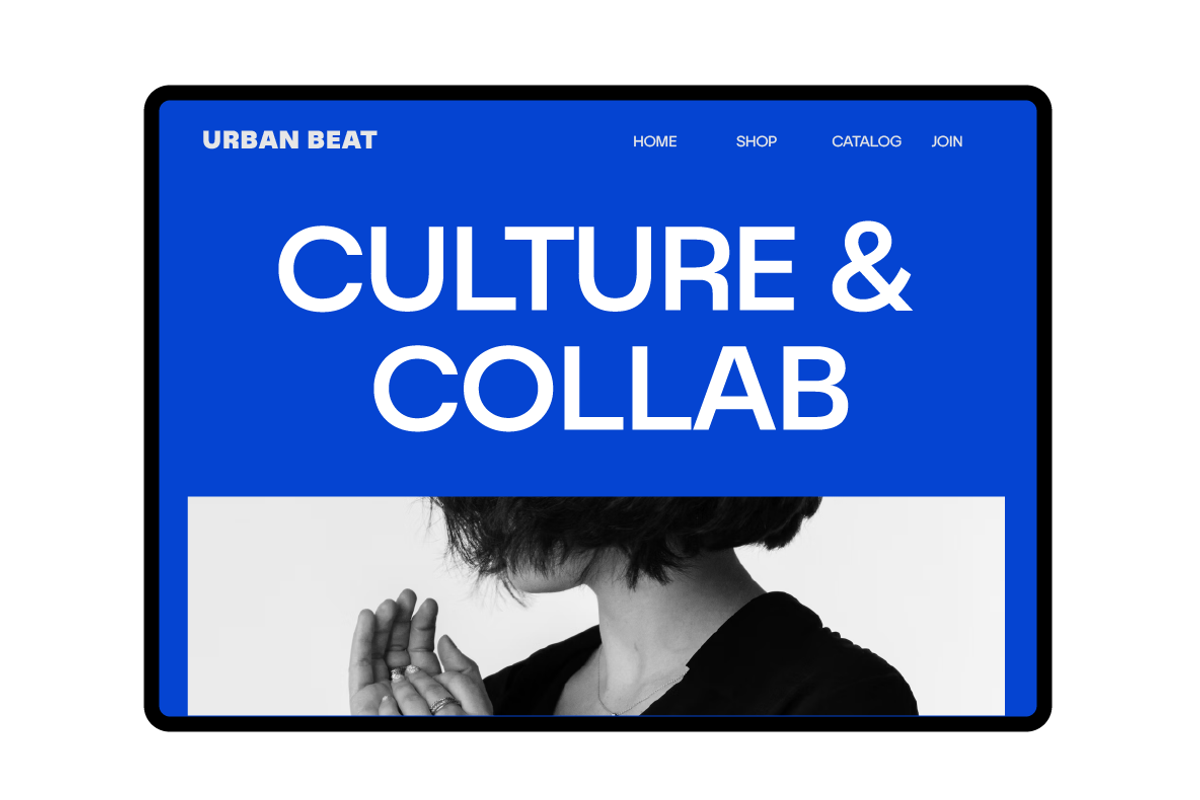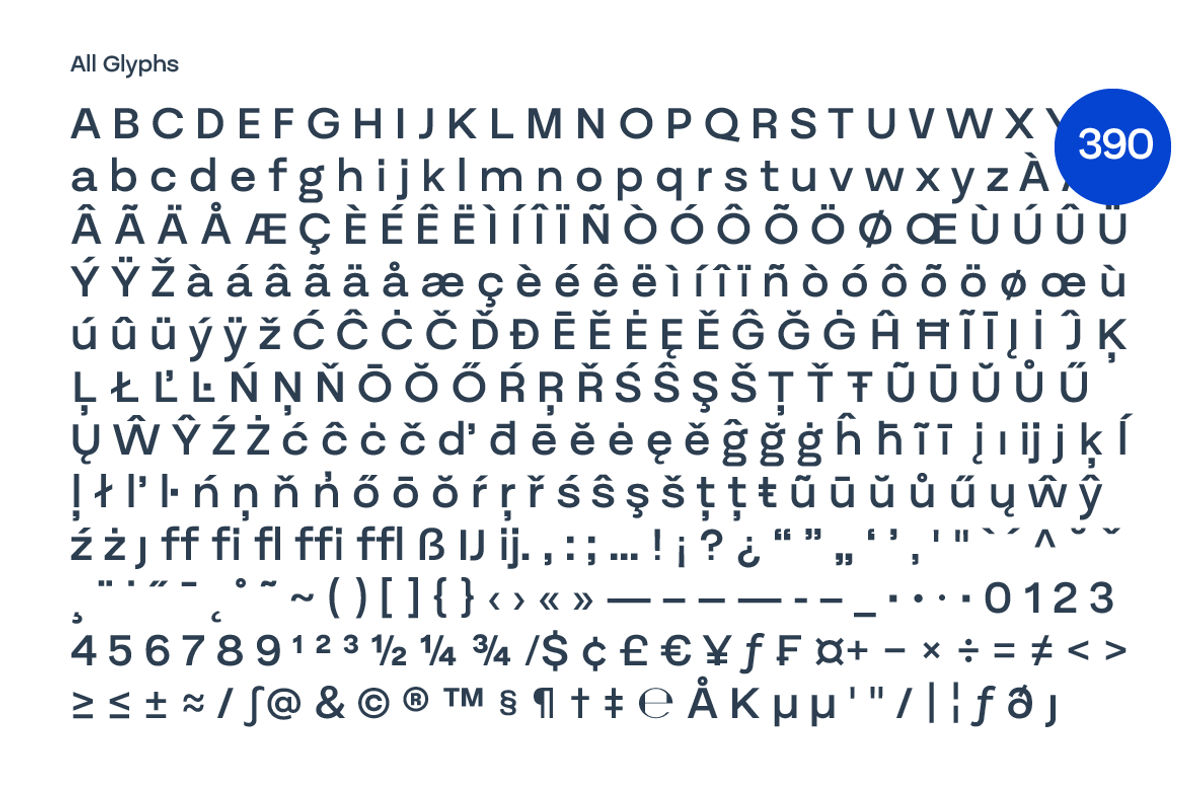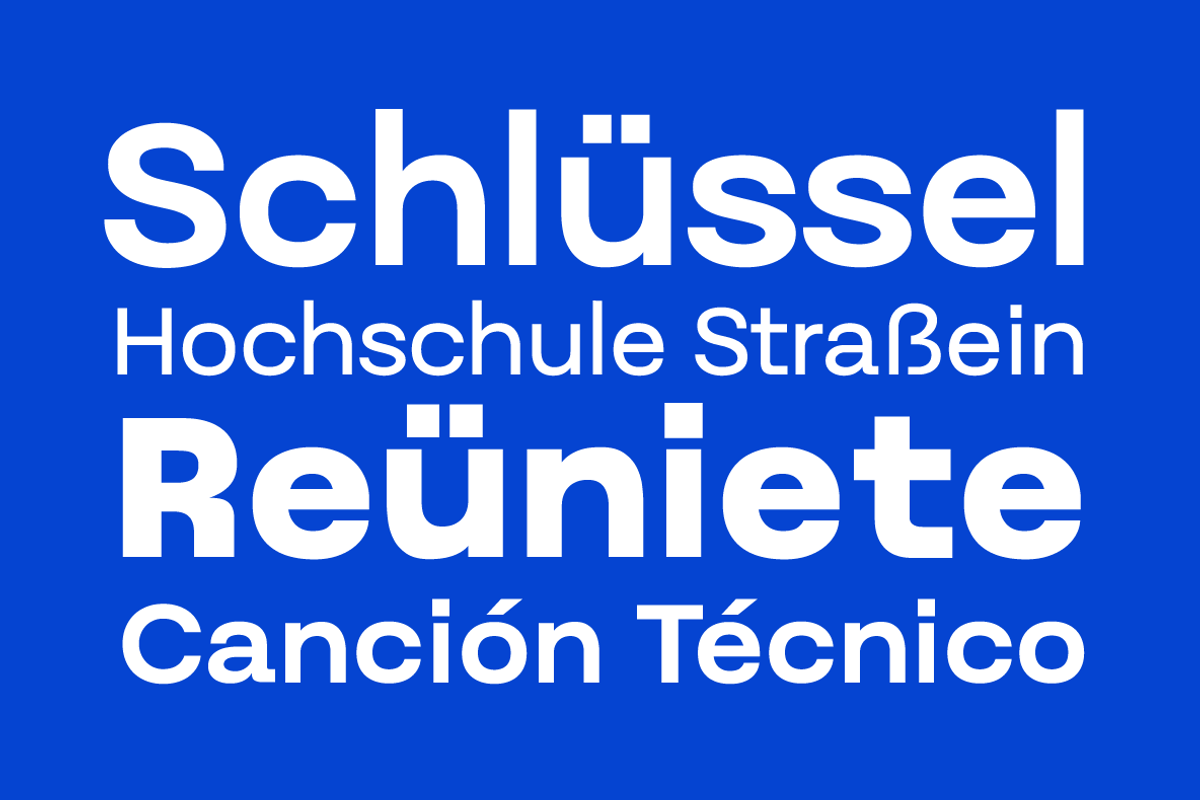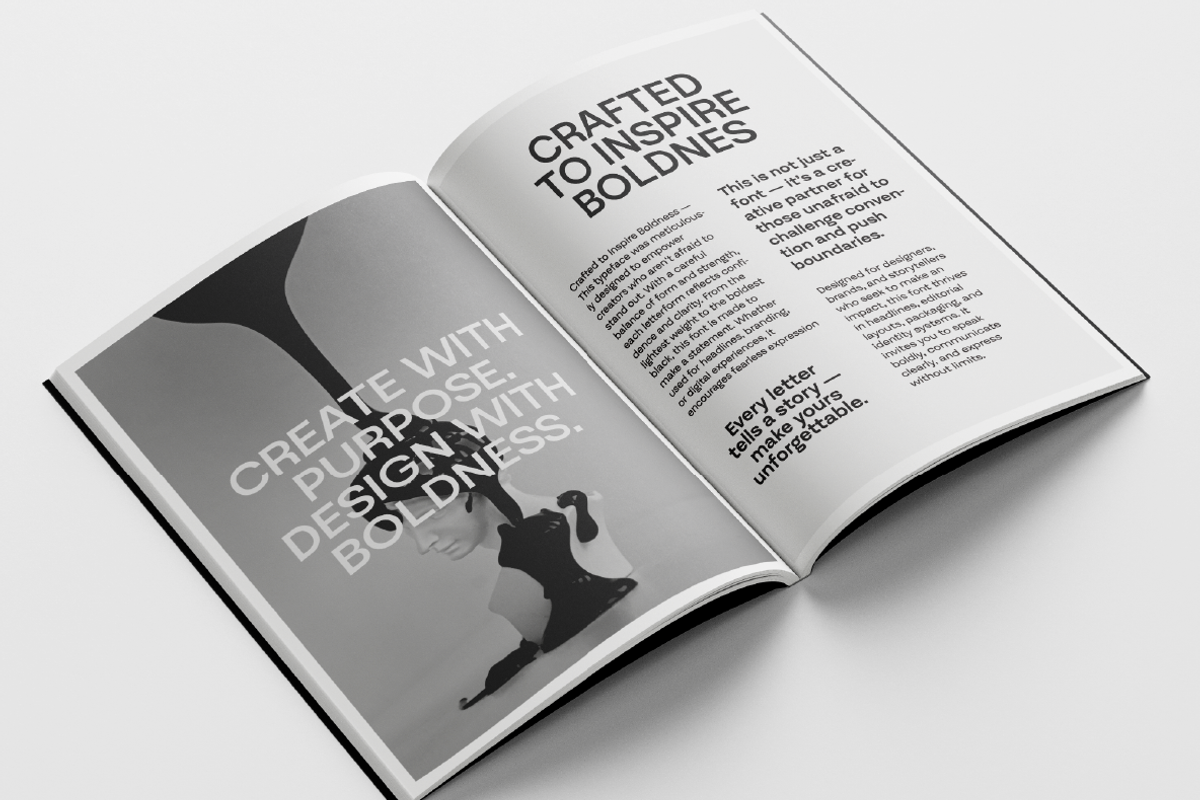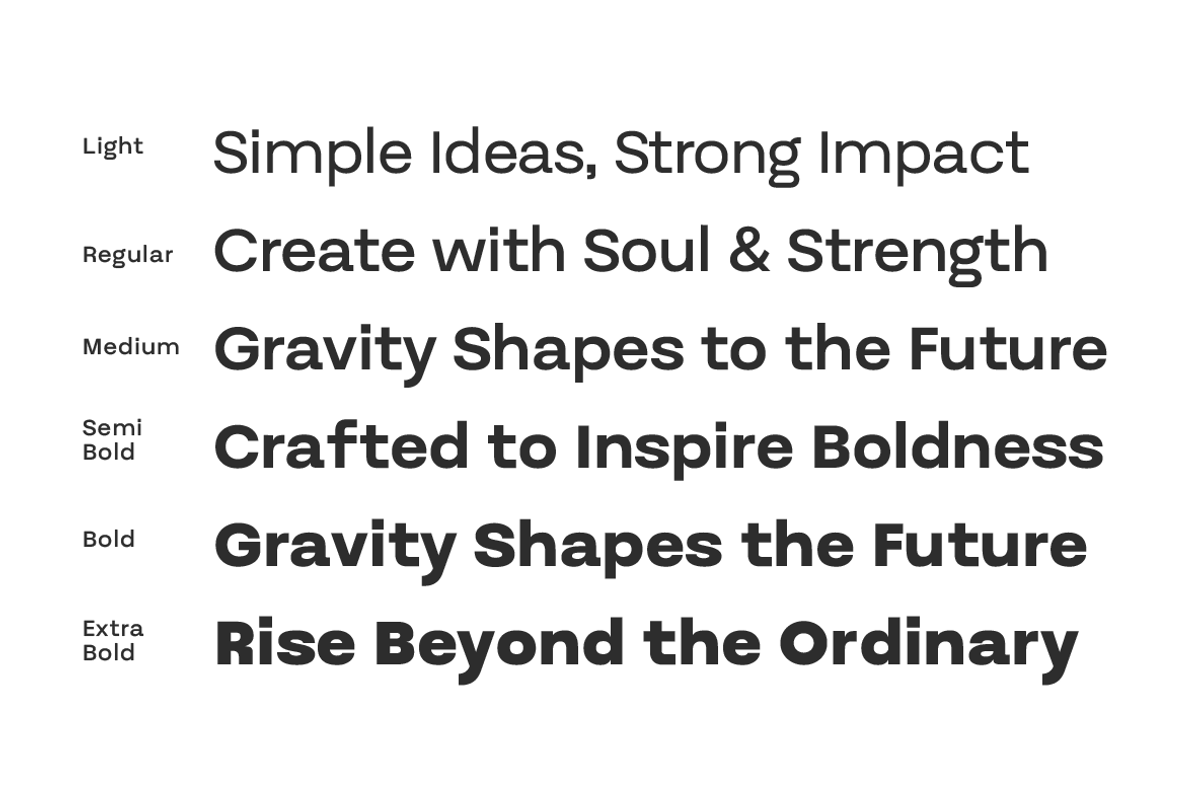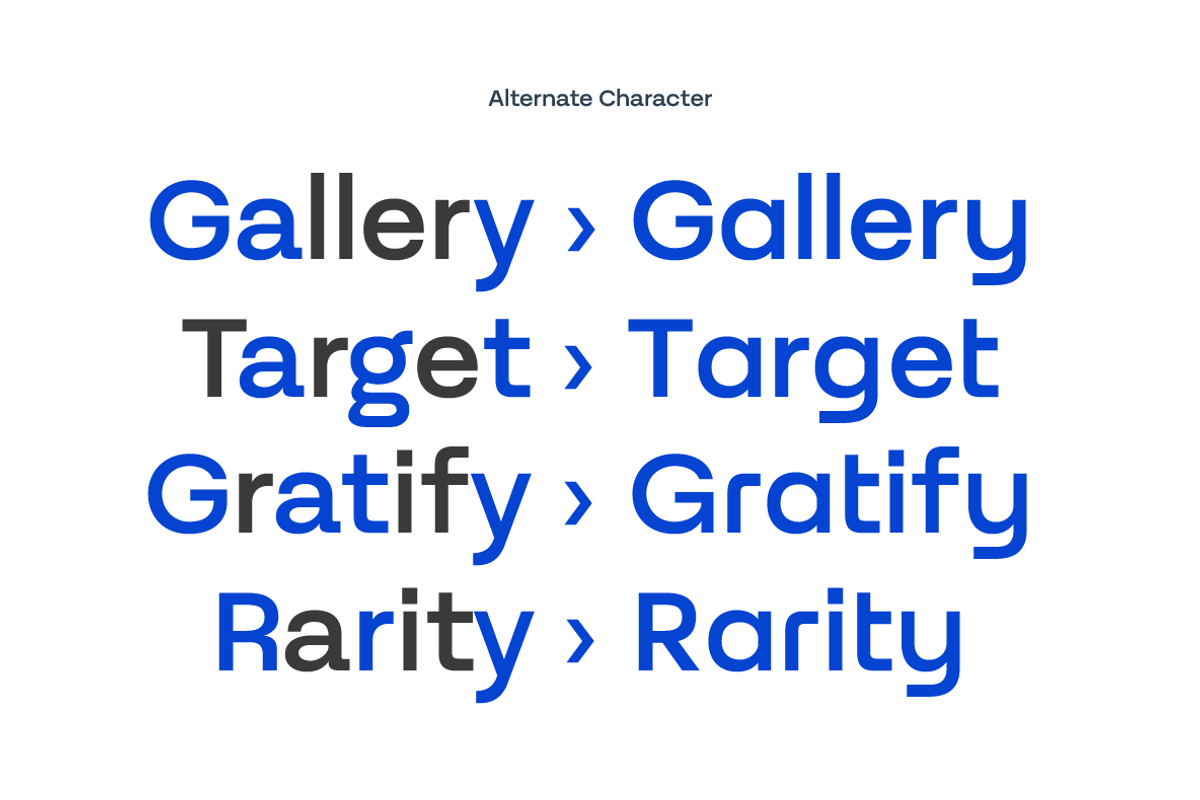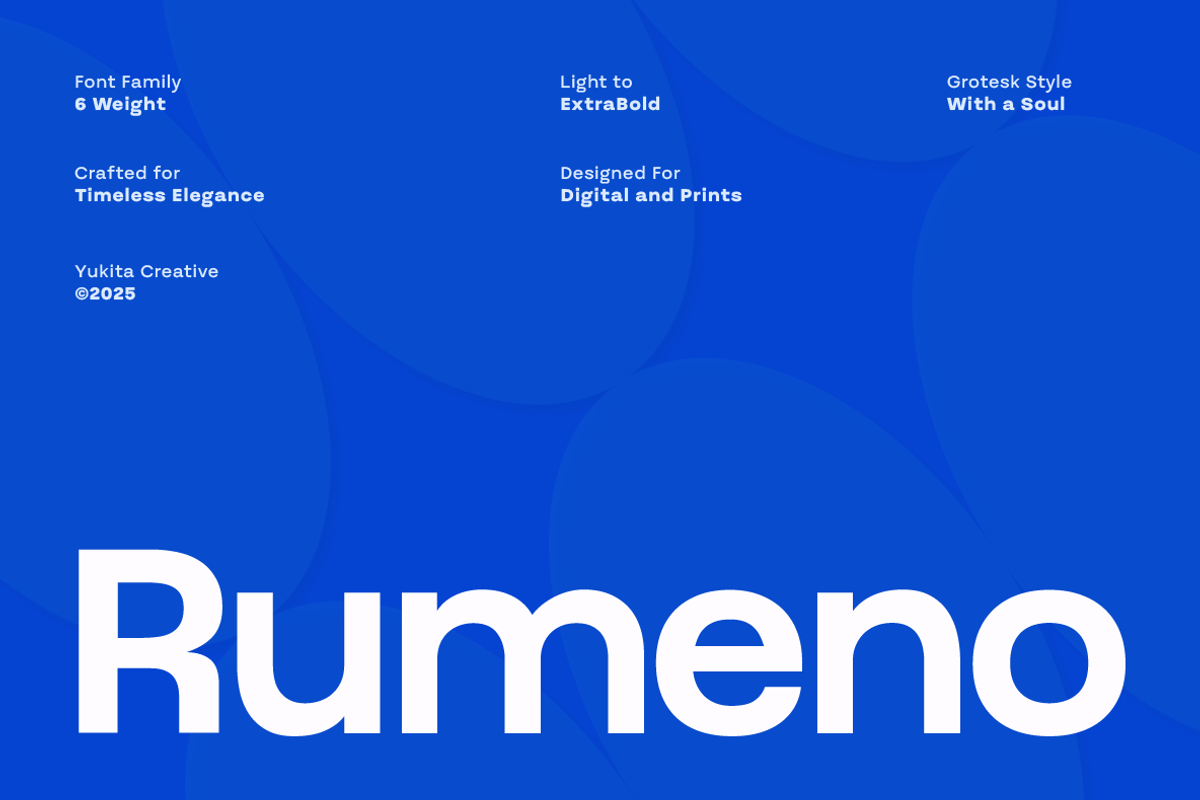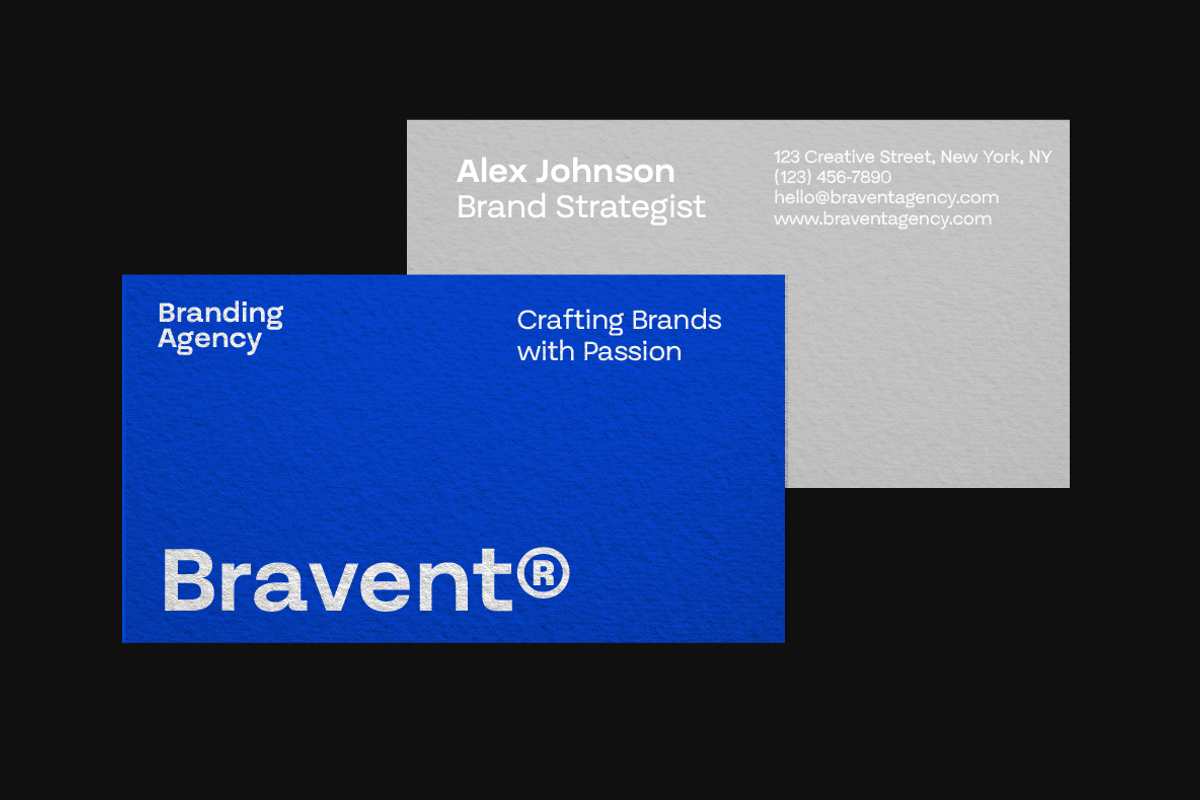
Rumeno Font Family
Rumeno is a clean and versatile grotesk-style sans serif typeface designed to bring clarity, balance, and boldness to your creative projects. With 6 carefully crafted weights from Light to ExtraBold, Rumeno offers strong visual hierarchy and refined legibility, perfect for both print and screen use.
Rumeno doesn’t just focus on clean design—it also gives you creative freedom. The typeface includes alternate characters to add personality and flexibility to your typography. 👉 Alternate characters are available for the following letters: G, g, y, a, R, r, and t These alternates allow for subtle style shifts—whether you want a more geometric, modern feel or a softer, more expressive look. They’re ideal for customizing logos, headlines, and branding work with ease.
Rumeno is perfect for a wide range of design applications including branding and logo design, editorial layouts, user interfaces, posters and advertising, as well as packaging and product labels. Its clean lines and flexible character set make it a reliable choice for both modern and timeless design projects.
- Alternate characters (Stylistic Set & Alternates)
- Smooth kerning and clean metrics